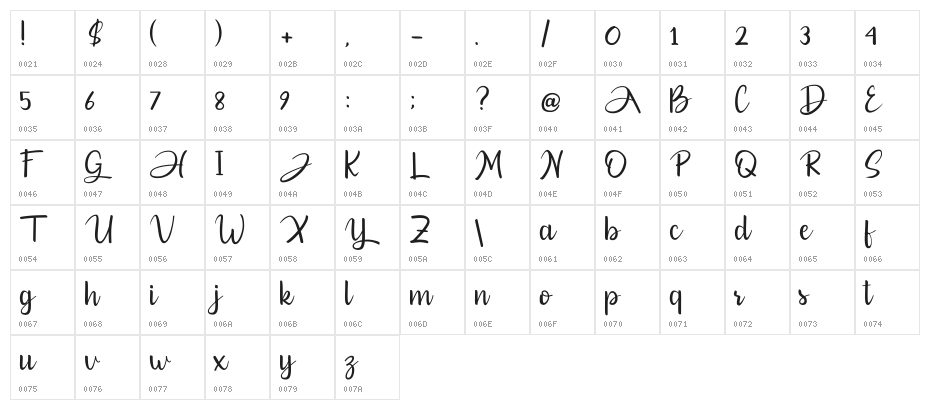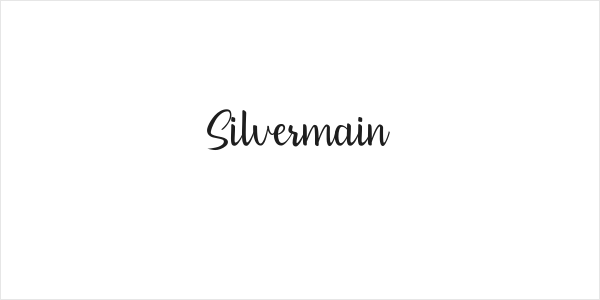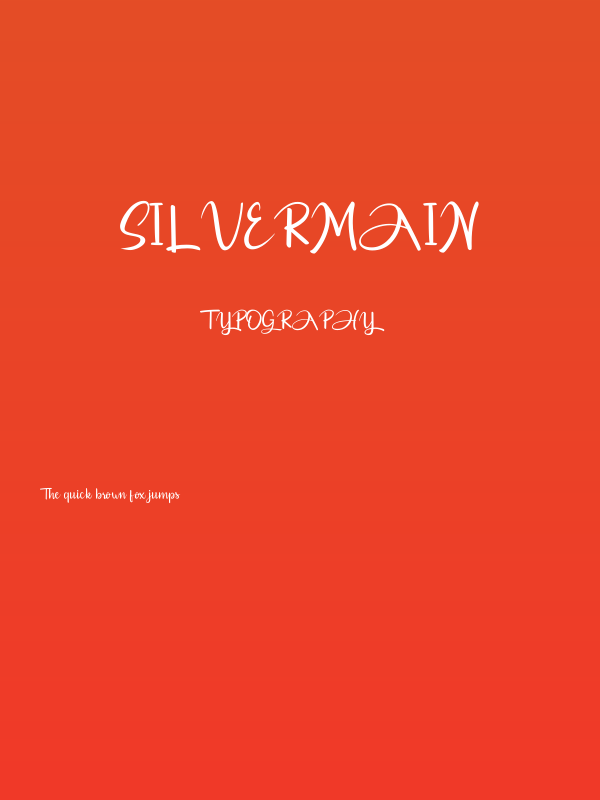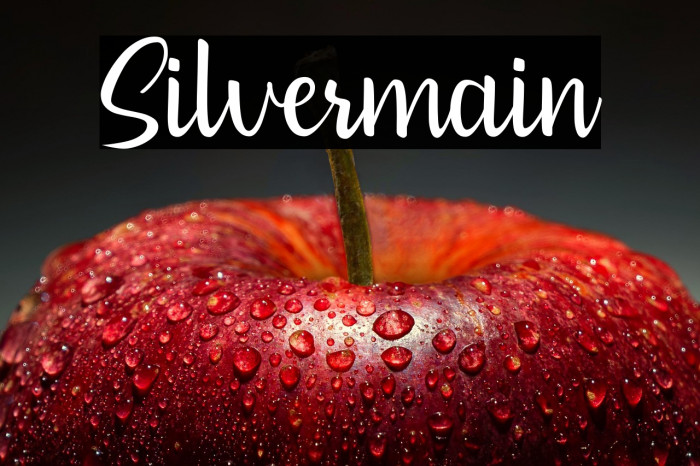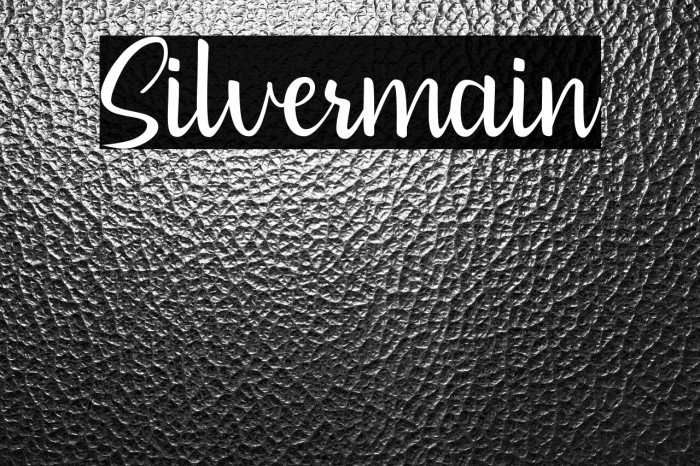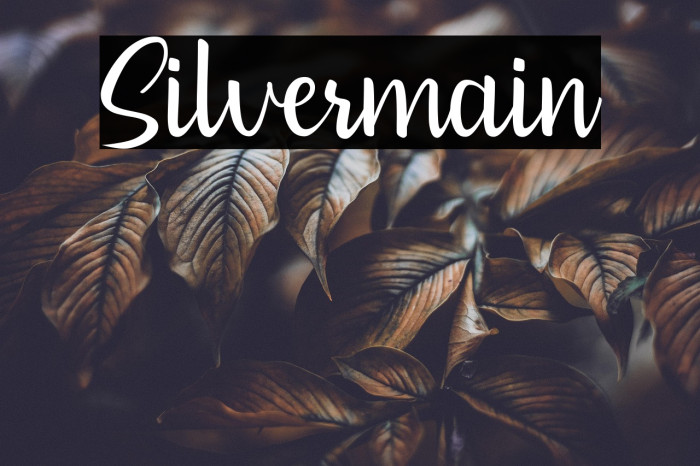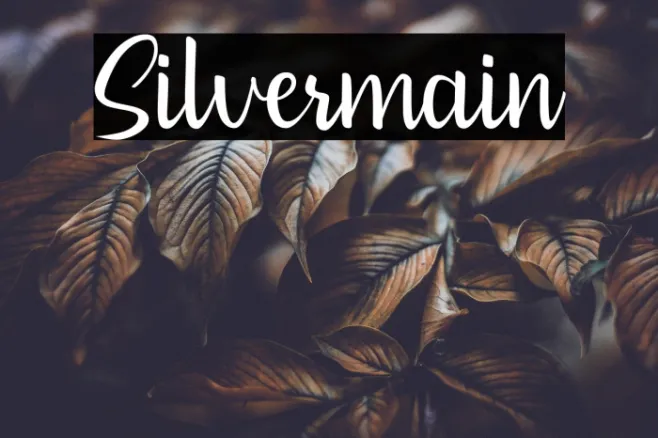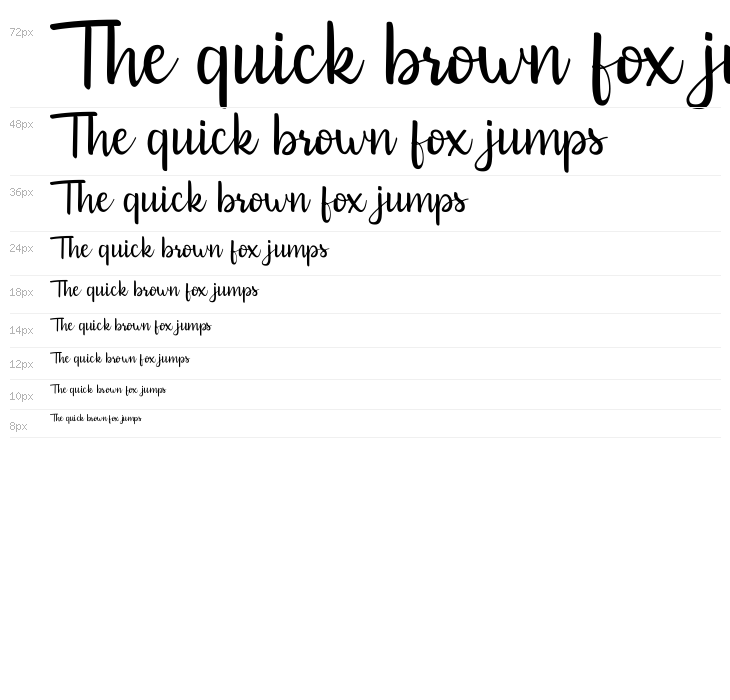
Silvermain Font
Silvermain Description
This font features a lively and flowing script style, characterized by its elegant and smooth curves. The uppercase letters are bold and dynamic, with a slight slant that adds a sense of movement and grace. The lowercase letters maintain a consistent rhythm, with rounded forms and a playful bounce that enhances readability. Numbers are clear and distinct, matching the overall aesthetic with their rounded edges and balanced proportions. Special characters are thoughtfully designed, integrating seamlessly with the rest of the typeface. This font exudes a sense of sophistication and charm, making it suitable for a variety of creative applications.